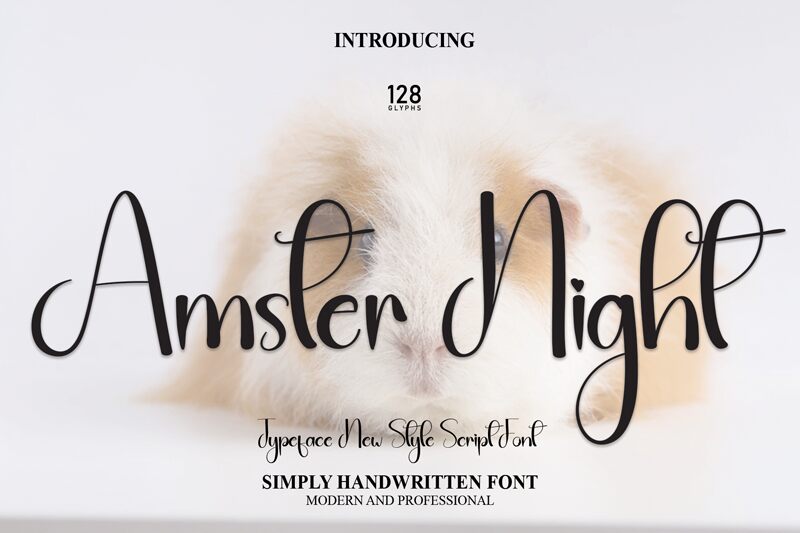
Amster Night
Amster Night, a creation of Scratchones, embodies the fluid grace of calligraphy in its elegant strokes and gentle curves. The font exudes a sense of personal touch and artistry, as if crafted by a skilled hand with an inked quill.
With its light and airy feel, it carries an air of sophistication that would enhance the character of upscale branding or lend an intimate charm to wedding invitations.
Amster Night's distinctive flow makes it a standout choice for designers seeking to infuse their work with both classic calligraphic beauty and modern flair.